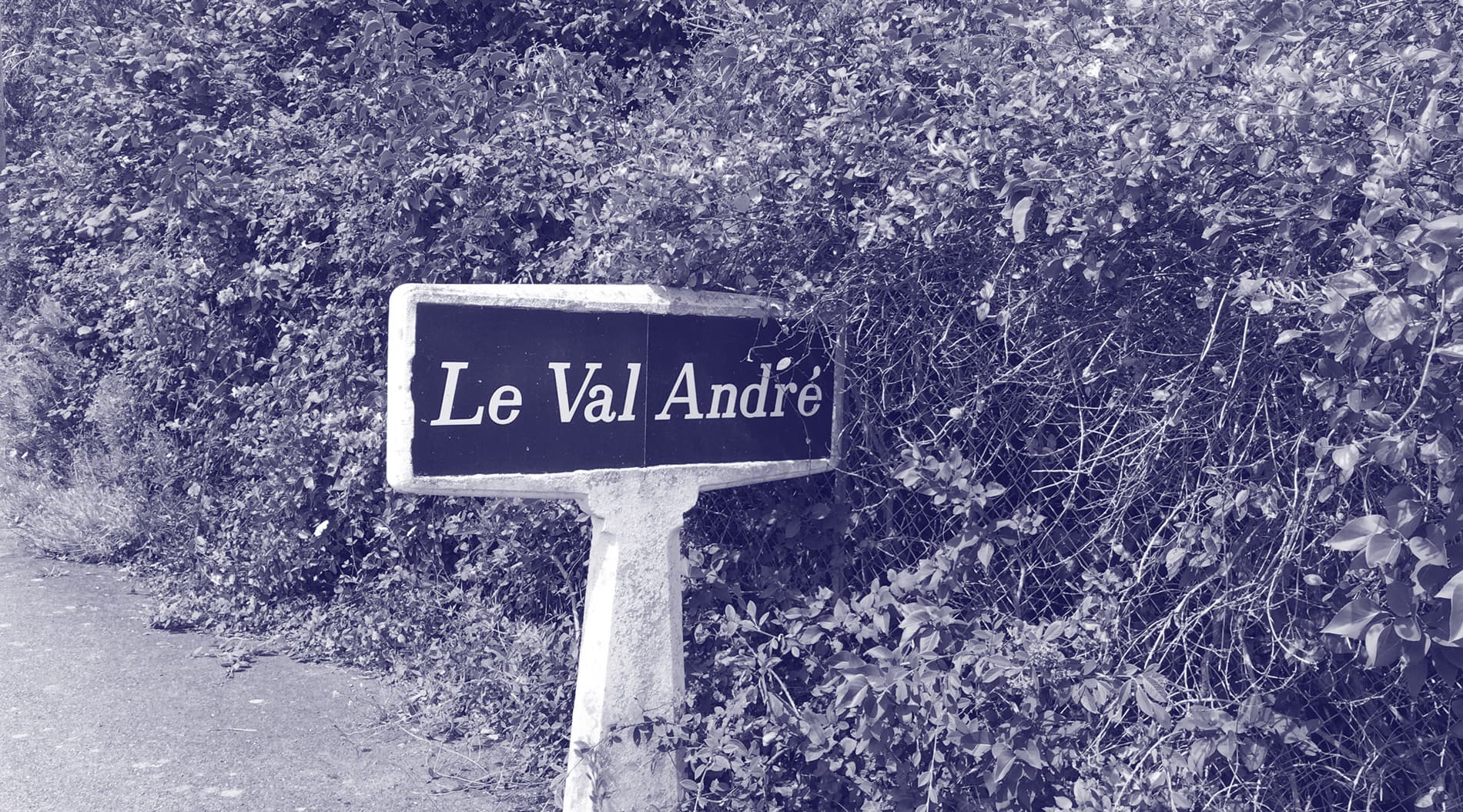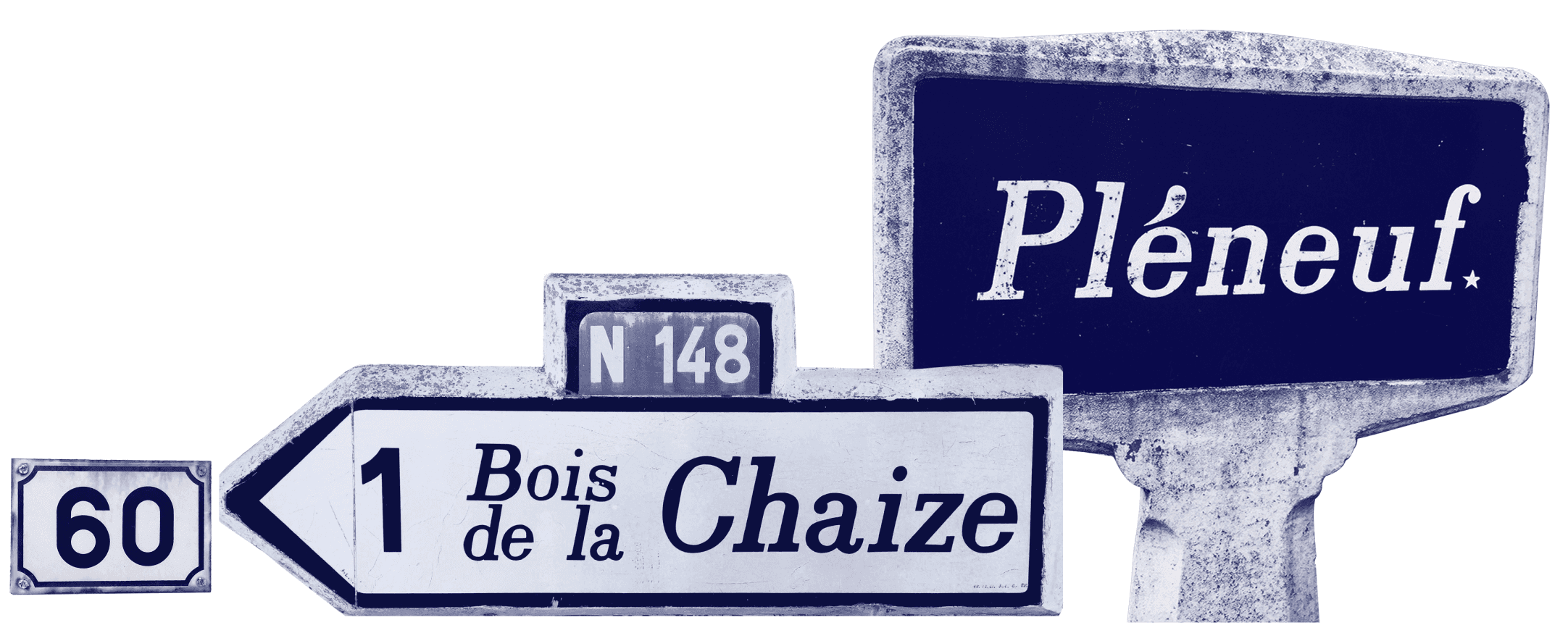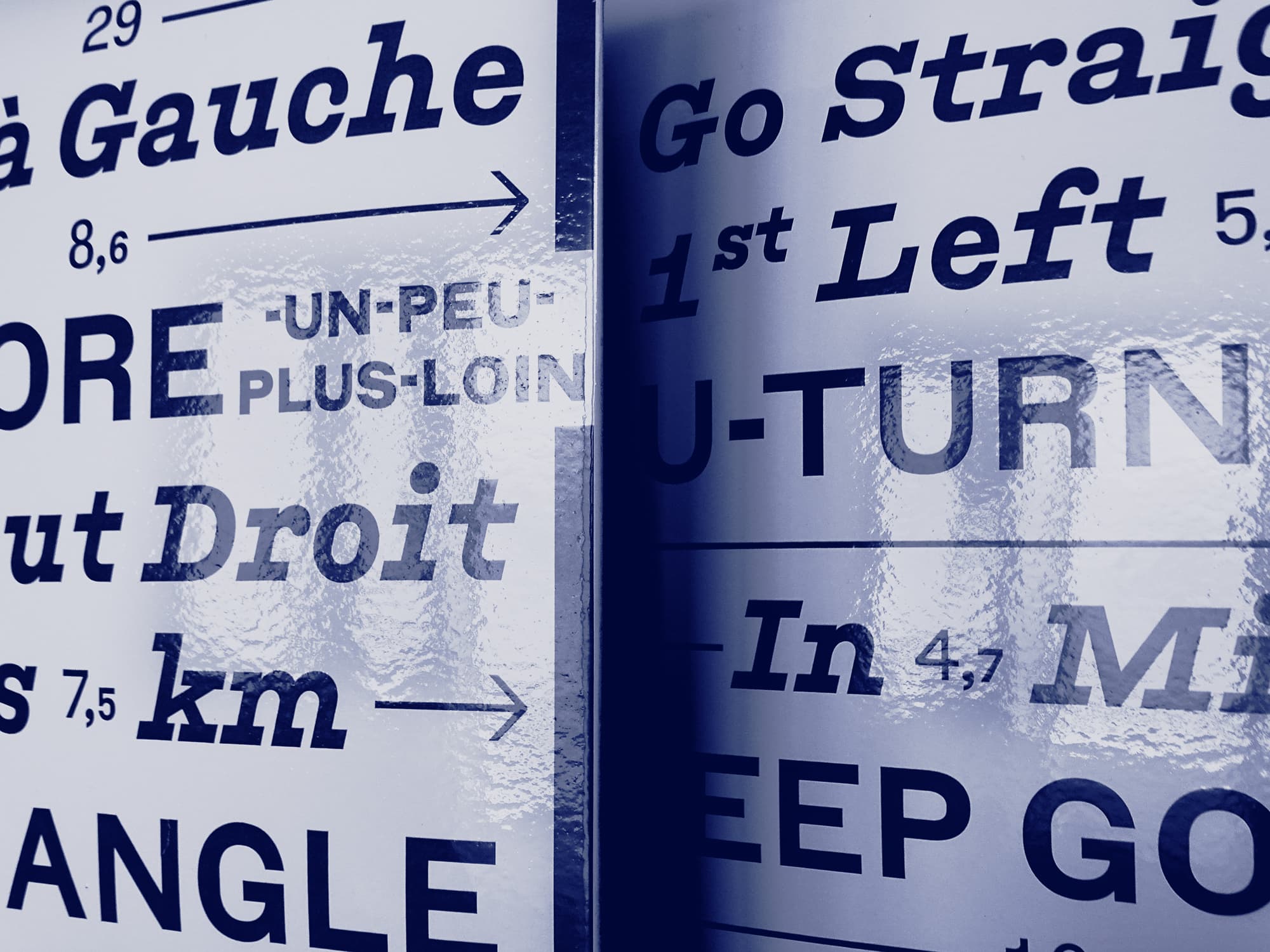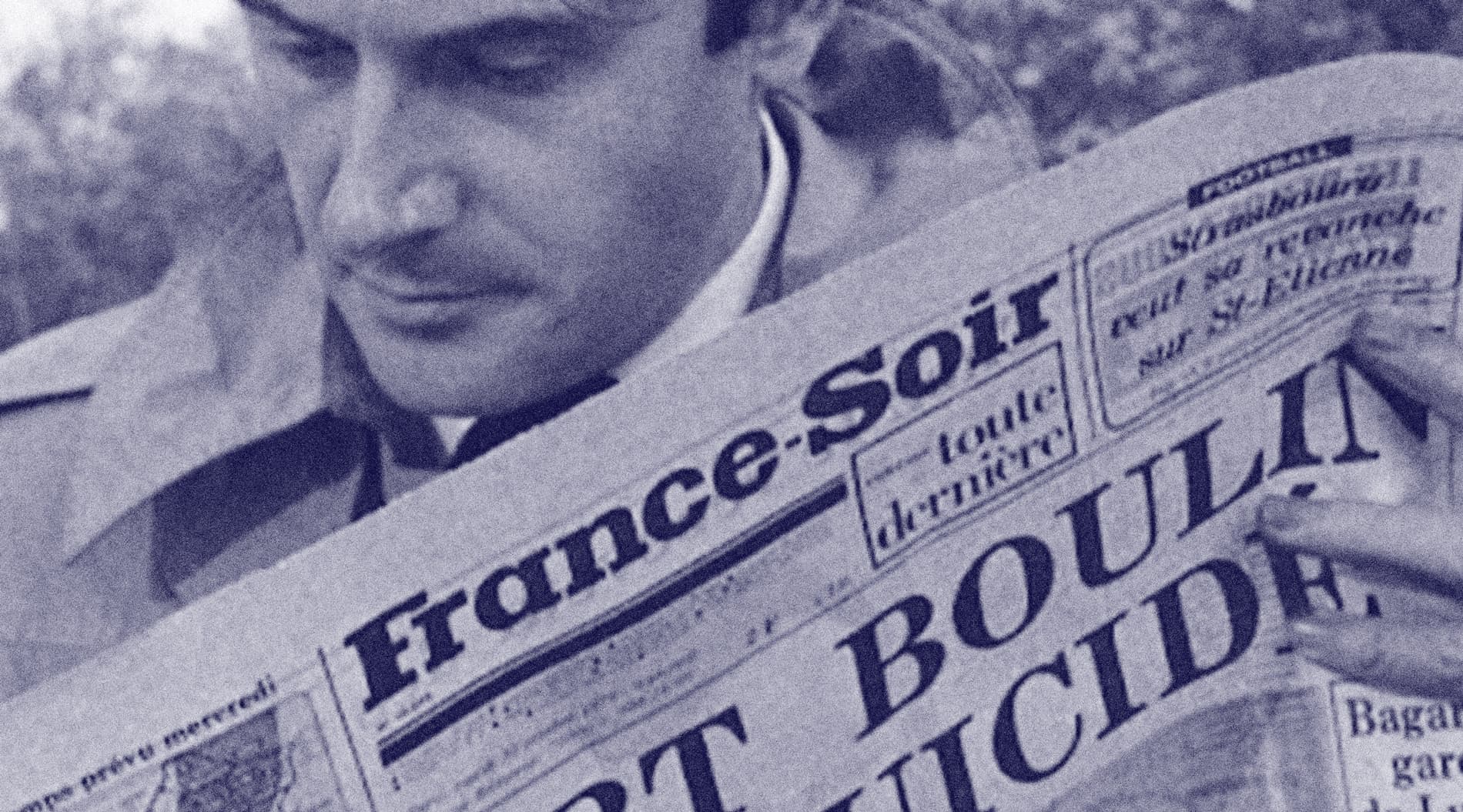
Tarnac
Tarnac began as a revival of the Turlot foundry’s 1905 Égyptiennes Penchées Noires (Black Leaning Egyptian). After first encountering the specimen at the Printing Museum in Lyon, designer Marc Rouault was taken by the unexpectedly modern feeling of this style, especially as compared to the rest of Turlot’s Égyptiennes 2e série, which contains a Regular, a Large, and a Grasses (fat) in addition to the Penchées Noires, which, unsurprisingly, has no Roman equivalent.  This particularly French style of slanted Égyptienne, with its wonky proportions and flat-interior bowl shapes, is an intractable aesthetic element of French culture and even the French countryside itself–featured in many of the Panneaux Michelin road signs. This historic signage, with its hand-painted loose fidelity to the Turlot model, served as a spiritual beacon for the design.
Tarnac Superfamily
Tarnac source material based on signage seen throughout france.
Enamel signs produced using Tarnac and Tarnac Sans
French road signage